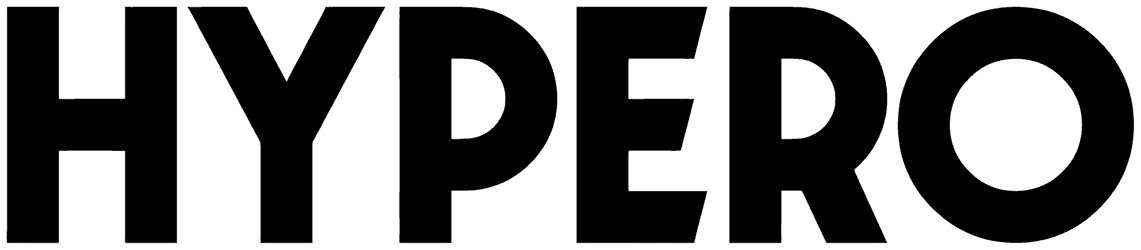
Hypero Font
You don’t always want to decorate your words with complex details, and it’s in situations like this that you realize the value of a bold modern font like Hypero. It may be so simple in style, but you can always count on…
You don’t always want to decorate your words with complex details, and it’s in situations like this that you realize the value of a bold modern font like Hypero. It may be so simple in style, but you can always count on it for a memorable first impression.
So if you want our opinion, try it as a sans serif font for your sports magazine, news channel, hypermarkets, or somewhere else, just as formal, maybe even requiring a bit of masculinity.